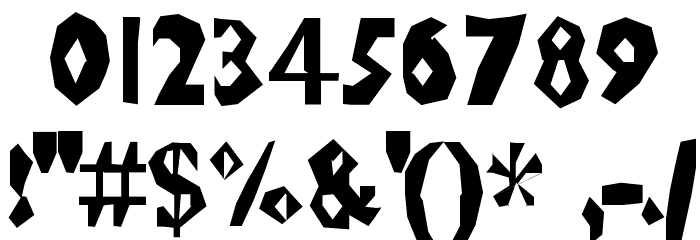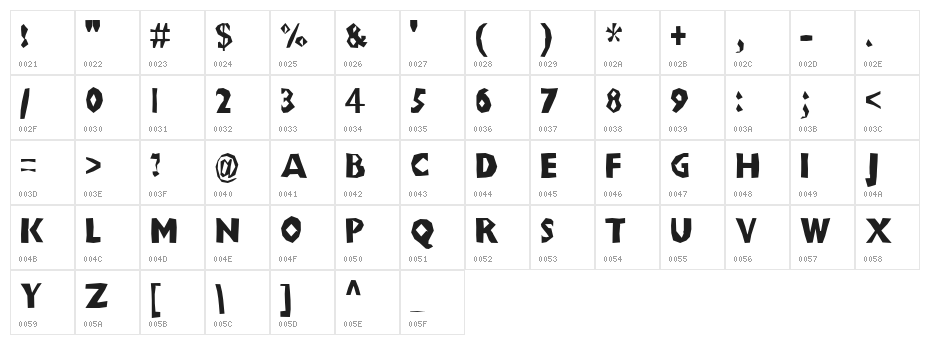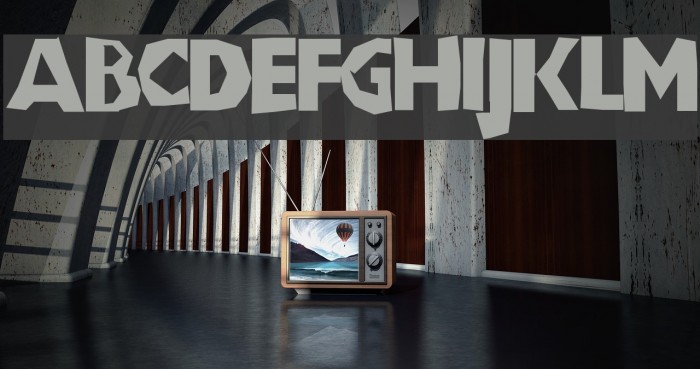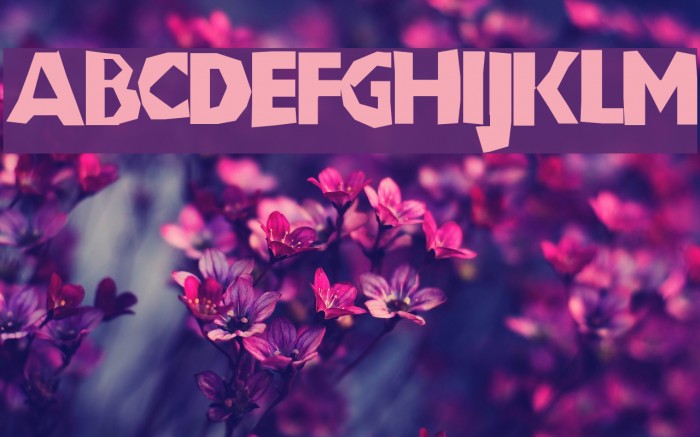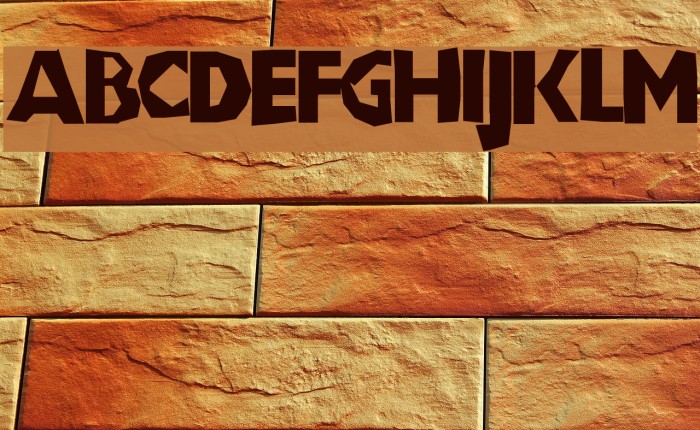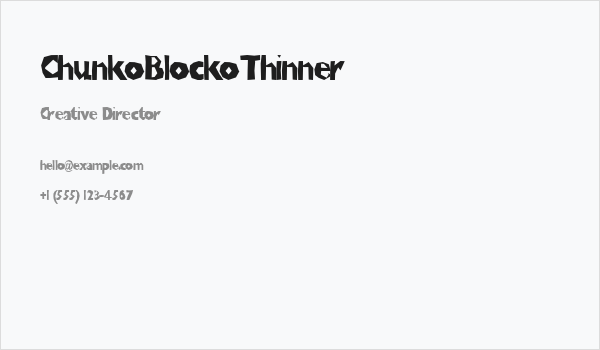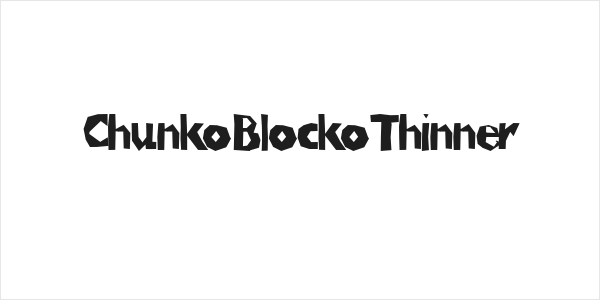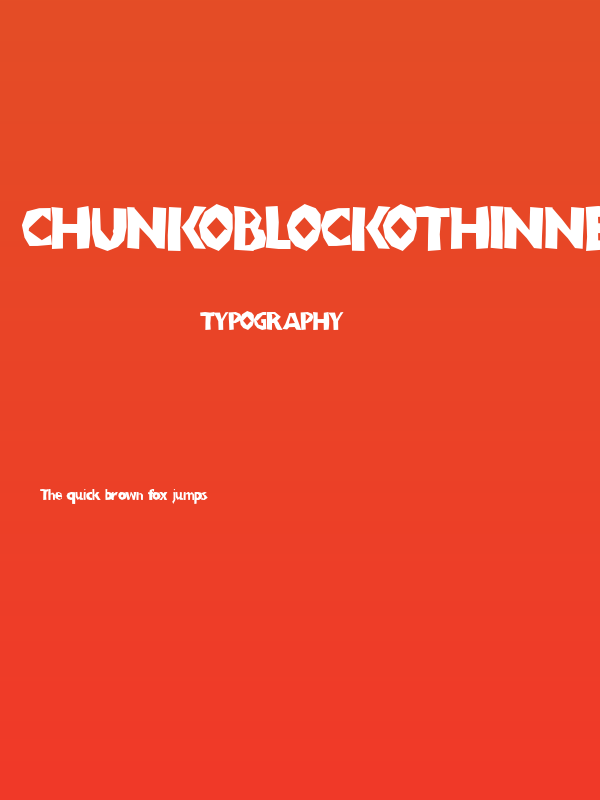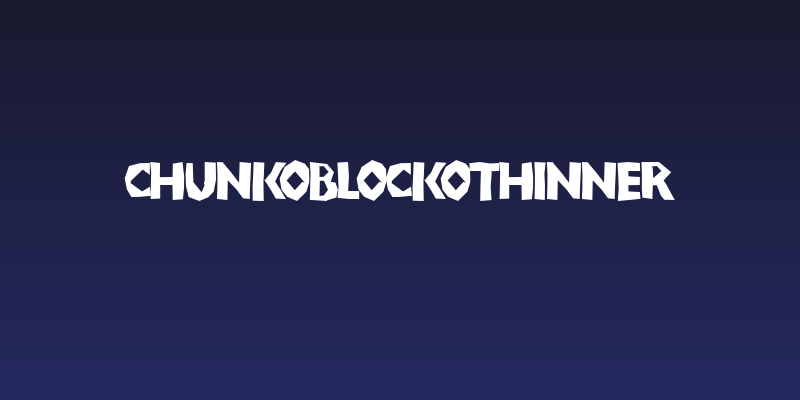
ChunkoBlockoThinner Font
ChunkoBlockoThinner Description
This font features a bold and chunky design with a playful and irregular block style. The letters have a hand-cut appearance, giving them a unique and artistic flair. The uppercase and lowercase characters maintain a consistent weight, while the numbers and special characters follow the same bold aesthetic. The font's distinct geometric shapes and uneven edges create a dynamic and eye-catching look, perfect for making a statement. Its boldness and irregularity make it suitable for creative projects that require a strong visual impact.
| Proposed Projects | Ideal for poster designs, album covers, branding projects, and any creative work that requires a bold and artistic touch. |